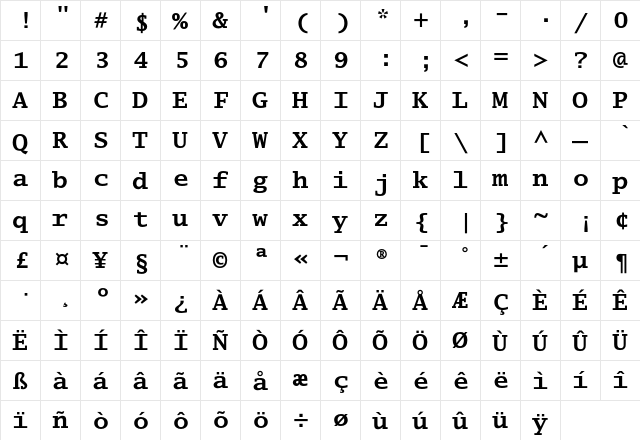
LucidaTypewriterEF Bold Font Preview
Design Context for LucidaTypewriterEF Typeface
LucidaTypewriterEF uses fixed-width spacing throughout, giving it the structured, systematic character associated with coding environments and technical documentation. The heavy weight commands attention and anchors typographic hierarchies.
Pro Tip: Use LucidaTypewriterEF with slightly increased line-height for extended reading — fixed-width spacing can feel dense in longer passages without extra breathing room.